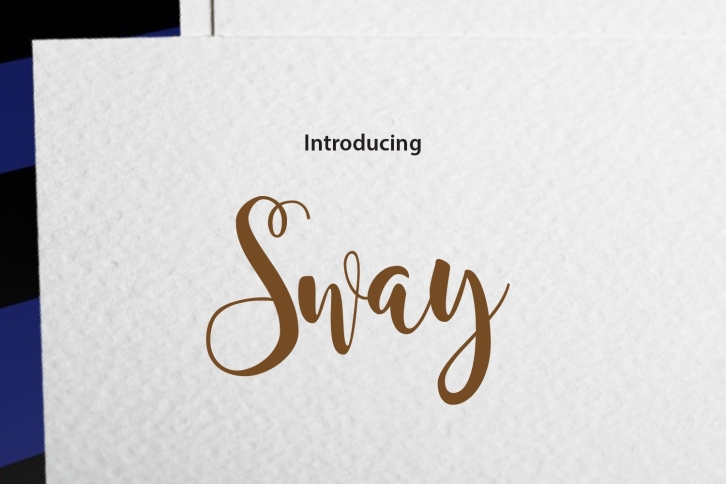
Sway is a great font that was designed by daonlyaan. Imagine the amount of combinations you can create using this font! The archive is 10.51 MB and it was released on March 5, 2021. Sway looks beautiful on wedding invitations, greeting cards, logos, posters, labels, t-shirt designs, logos, business cards and is perfect for use in ink or watercolor works, fashion, magazines, packaging and food menus, children's books and more!